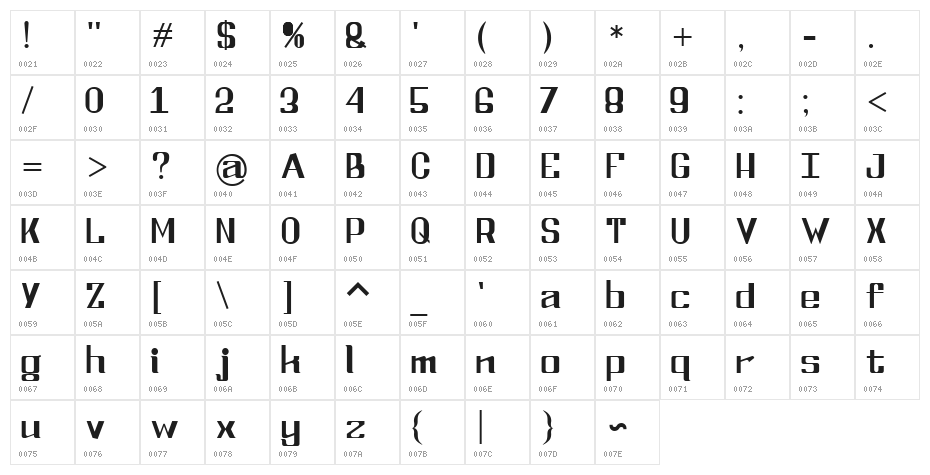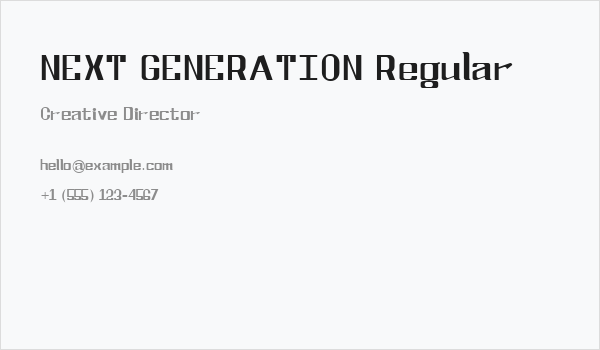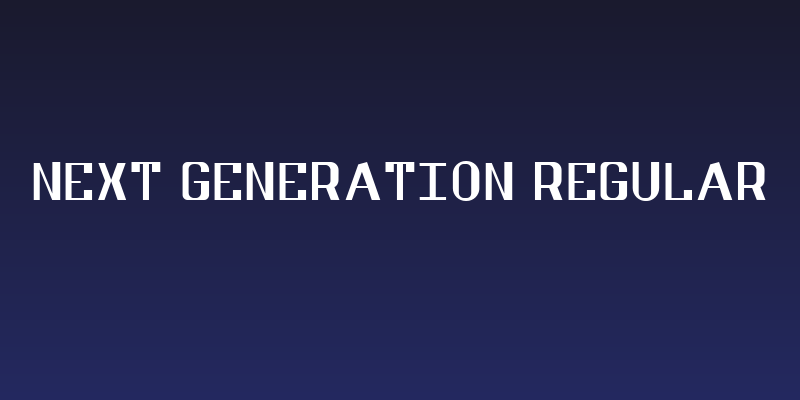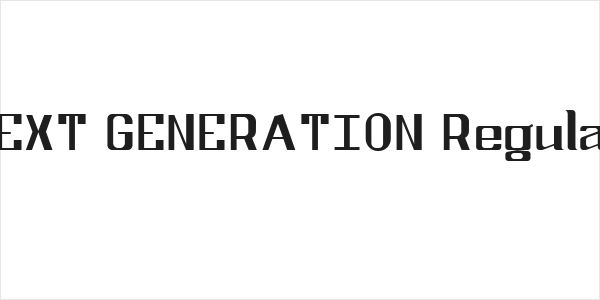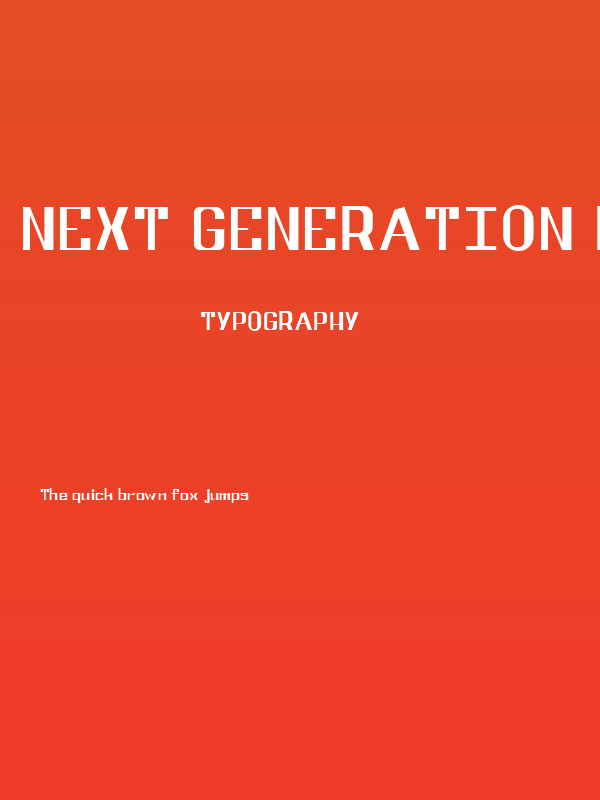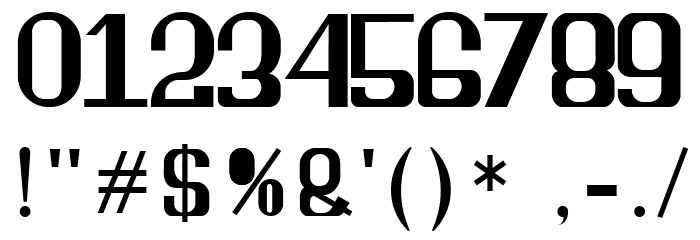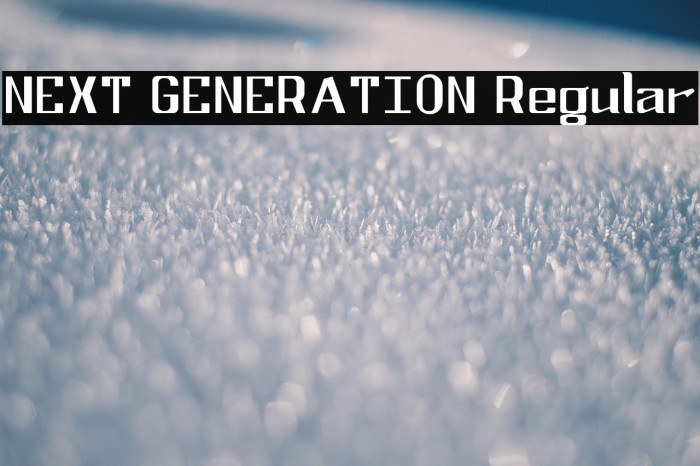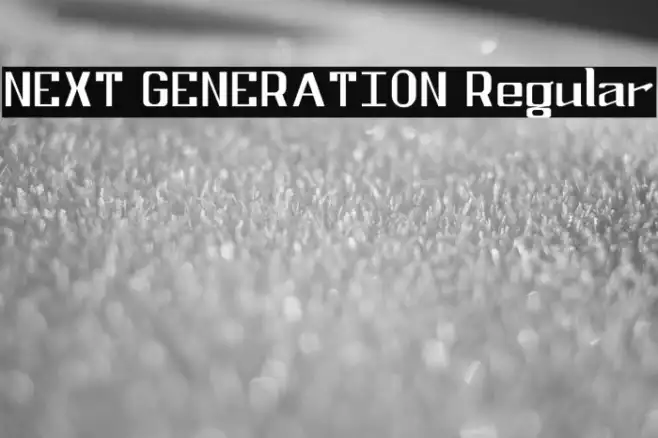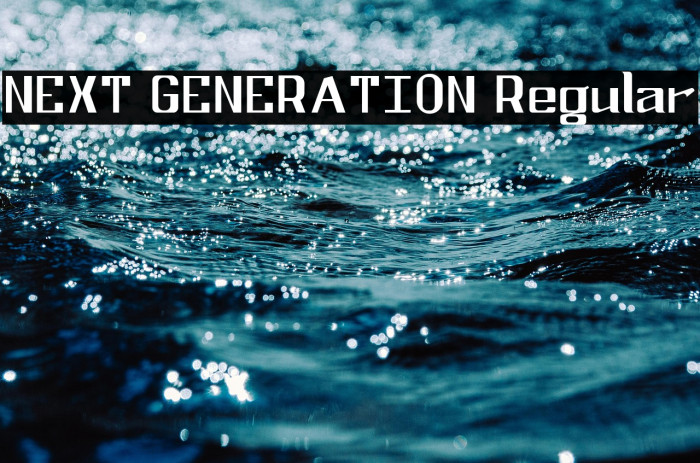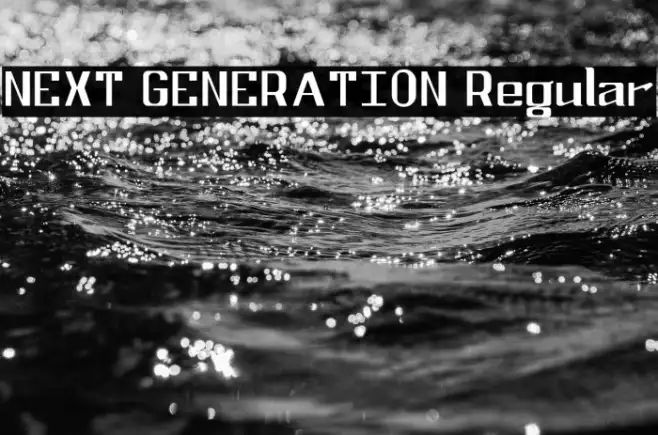
NEXT GENERATION Regular Font
NEXT GENERATION Regular Description
This font features a modern and futuristic design with a geometric and angular structure. The uppercase letters are bold and striking, with a distinct emphasis on vertical and horizontal lines, creating a sense of stability and strength. The lowercase letters maintain a consistent style, with unique curves and angles that add a dynamic feel. The numerals are bold and clear, making them highly legible. Special characters are designed with the same geometric precision, ensuring a cohesive look across all glyphs. This font is ideal for projects that require a contemporary and innovative appearance.